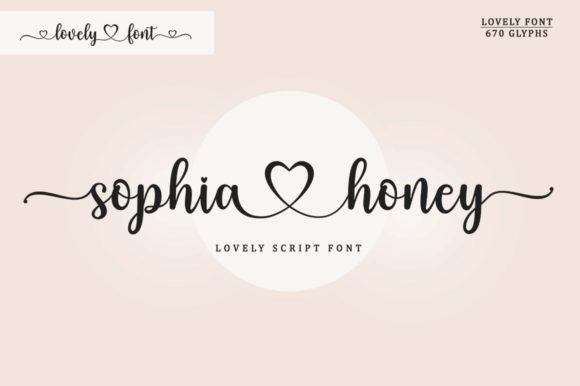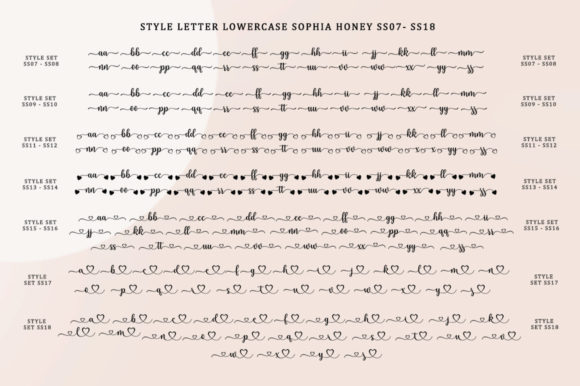
About Sophia Honey Font
Sophia Honey is a romantic and delicate script font. Use it for projects that need a lovely typography! This font is PUA encoded, which means you can access all of the glyphs and swashes with ease!